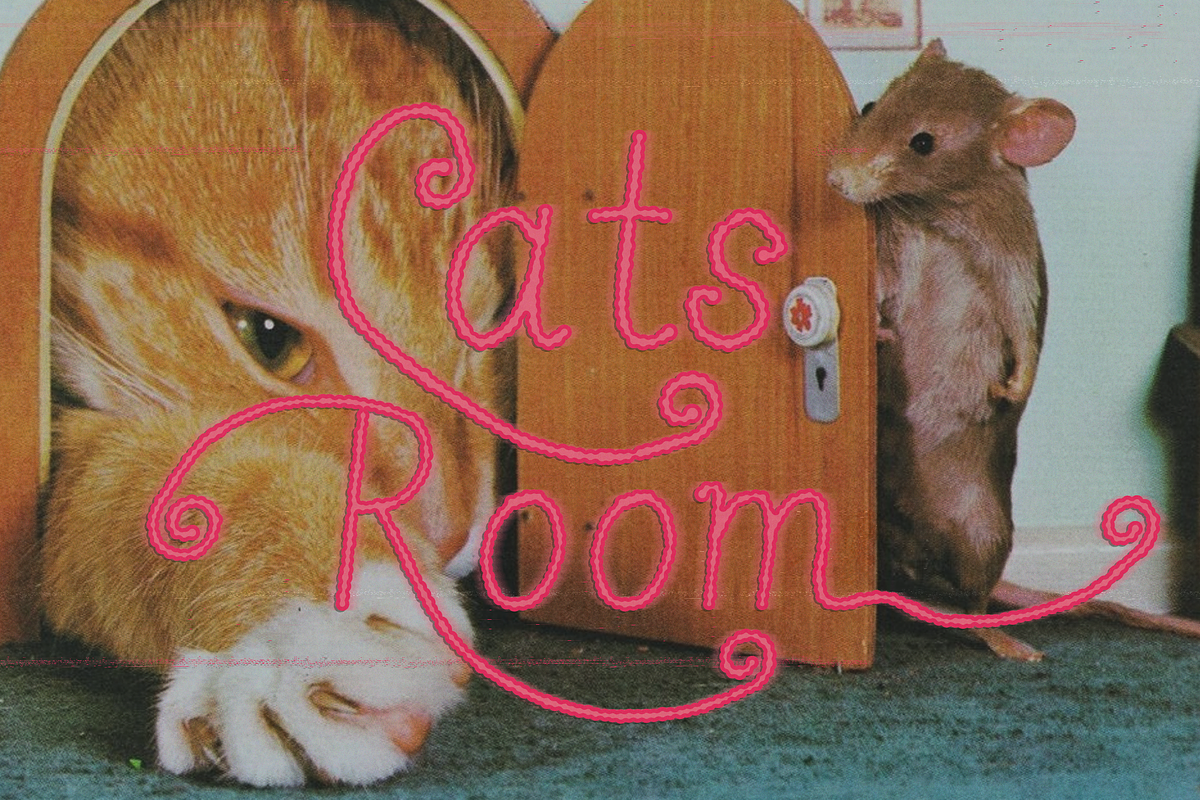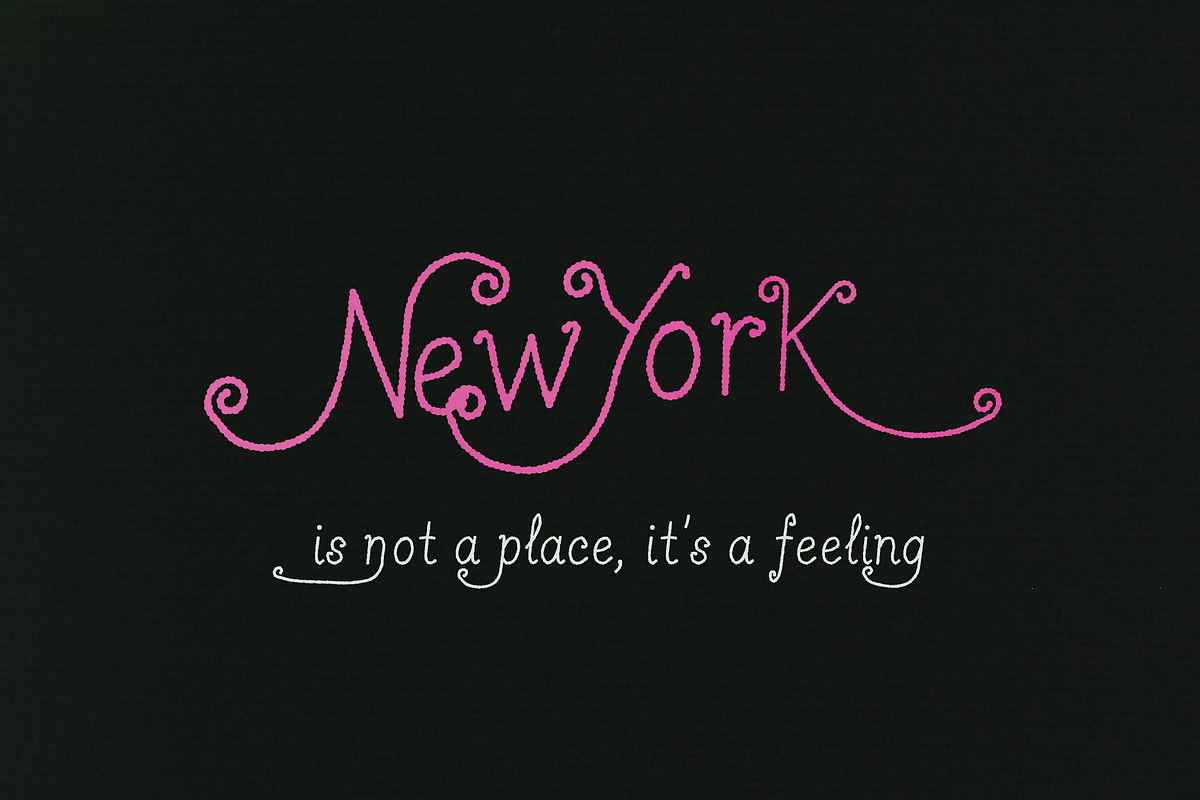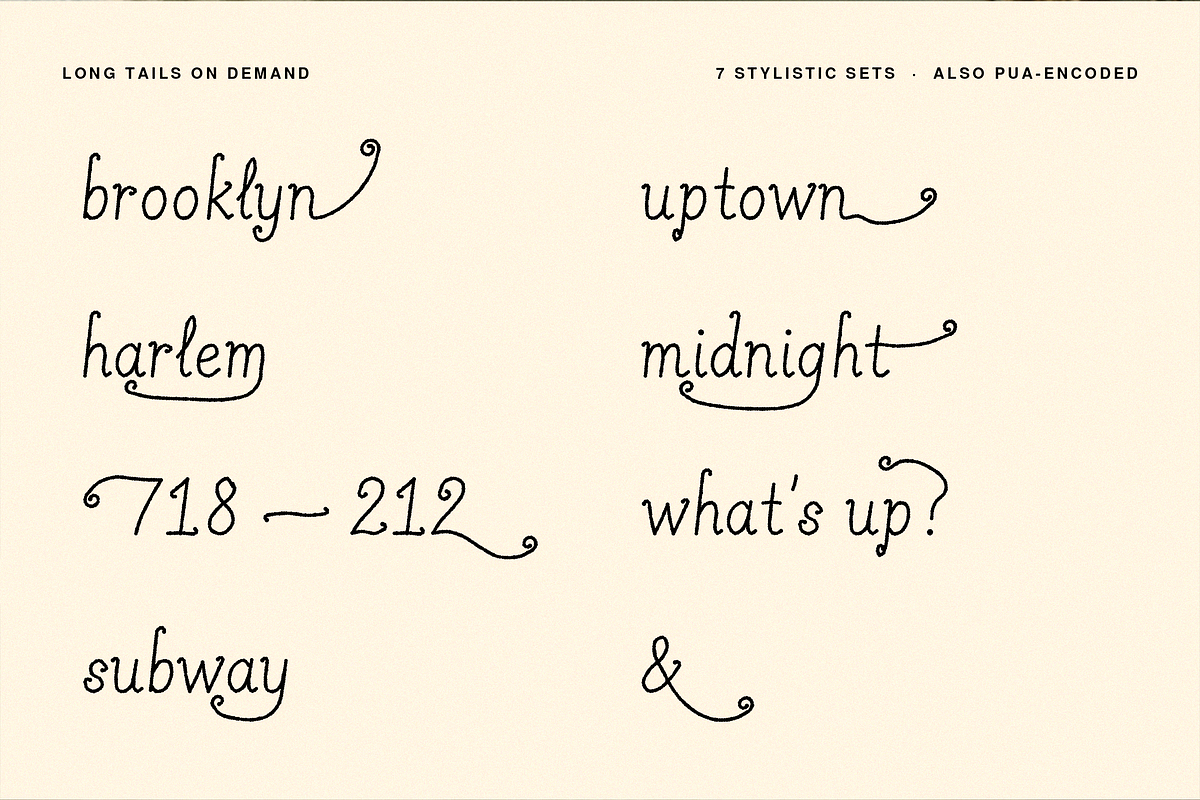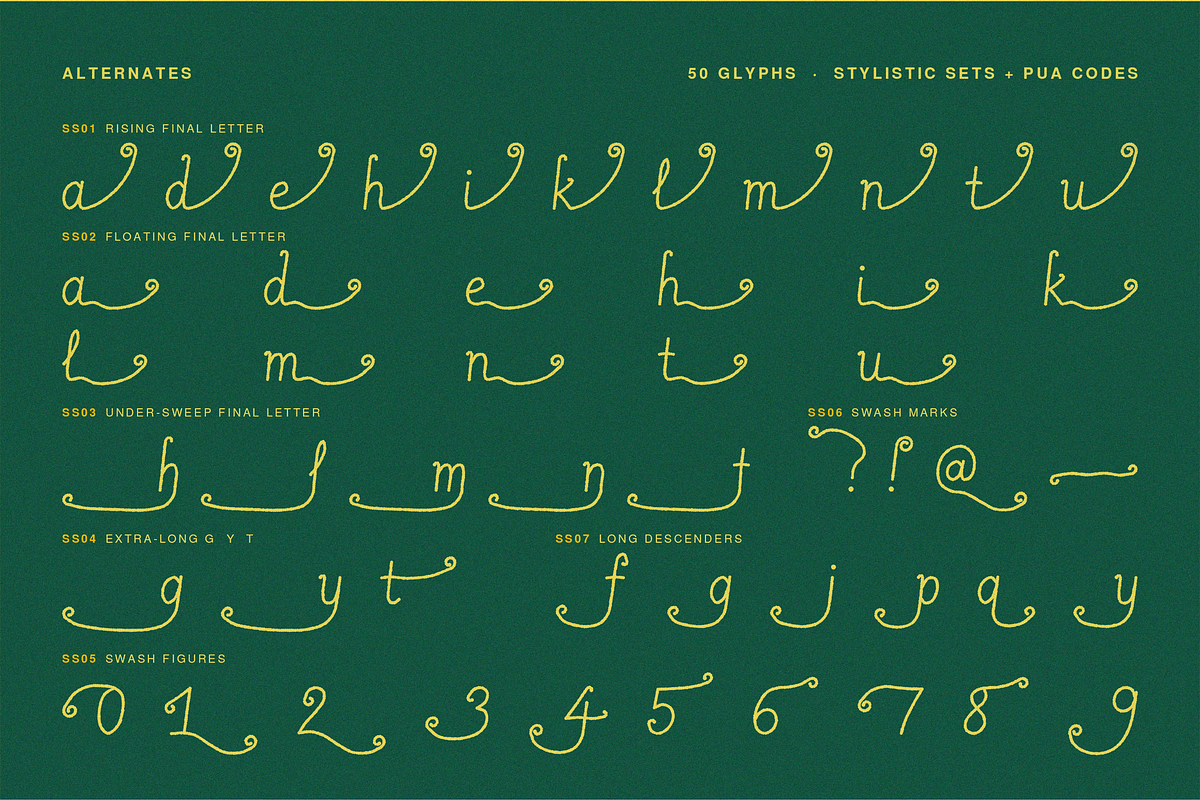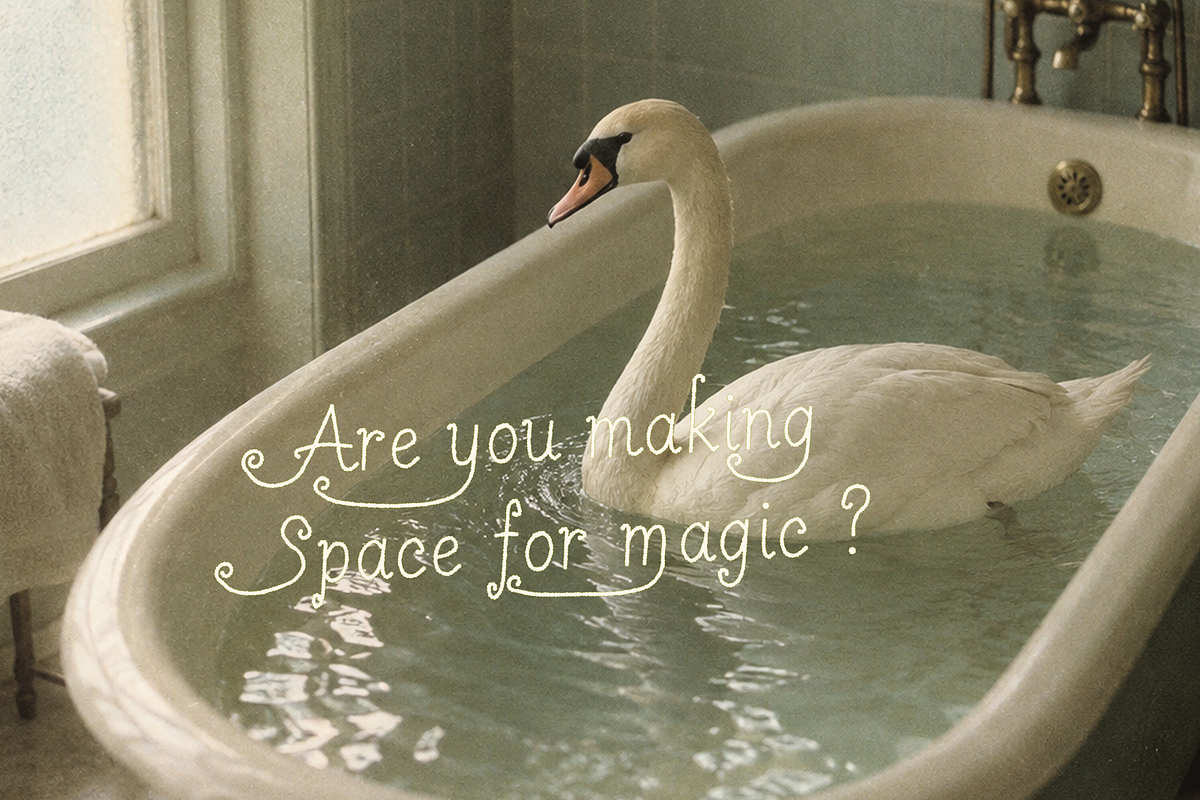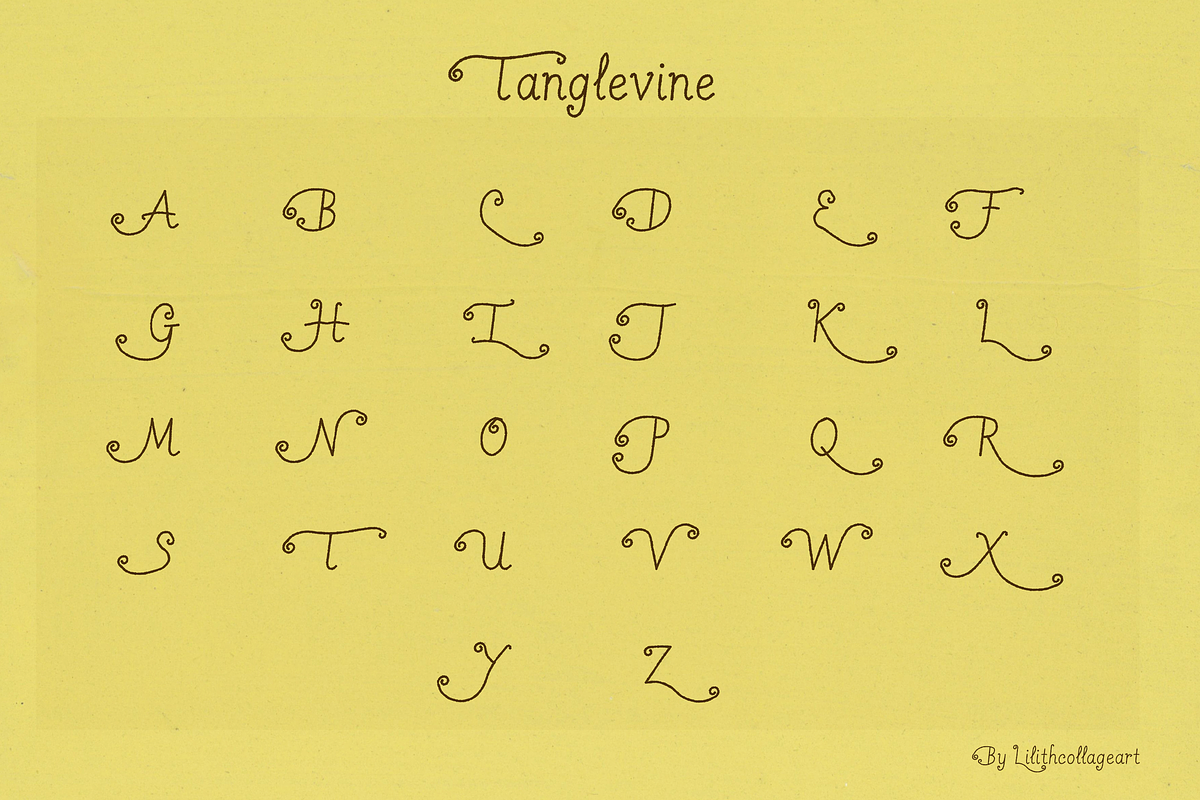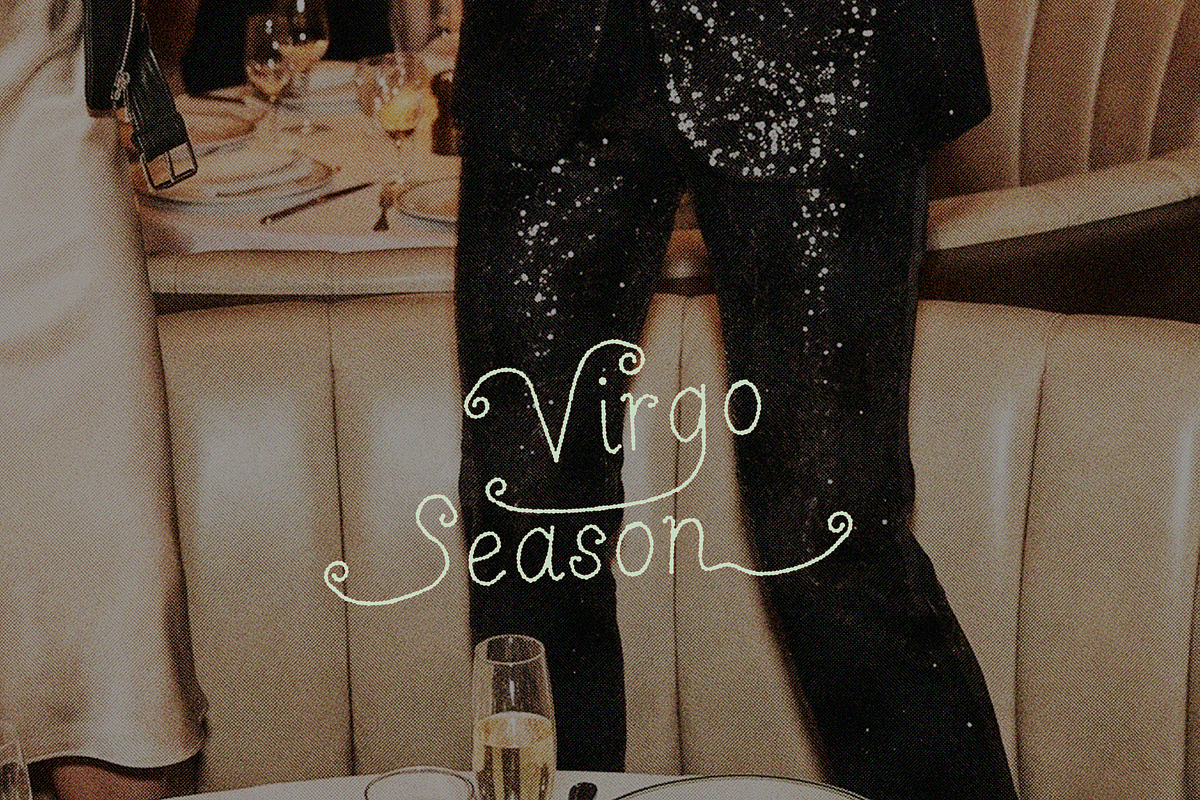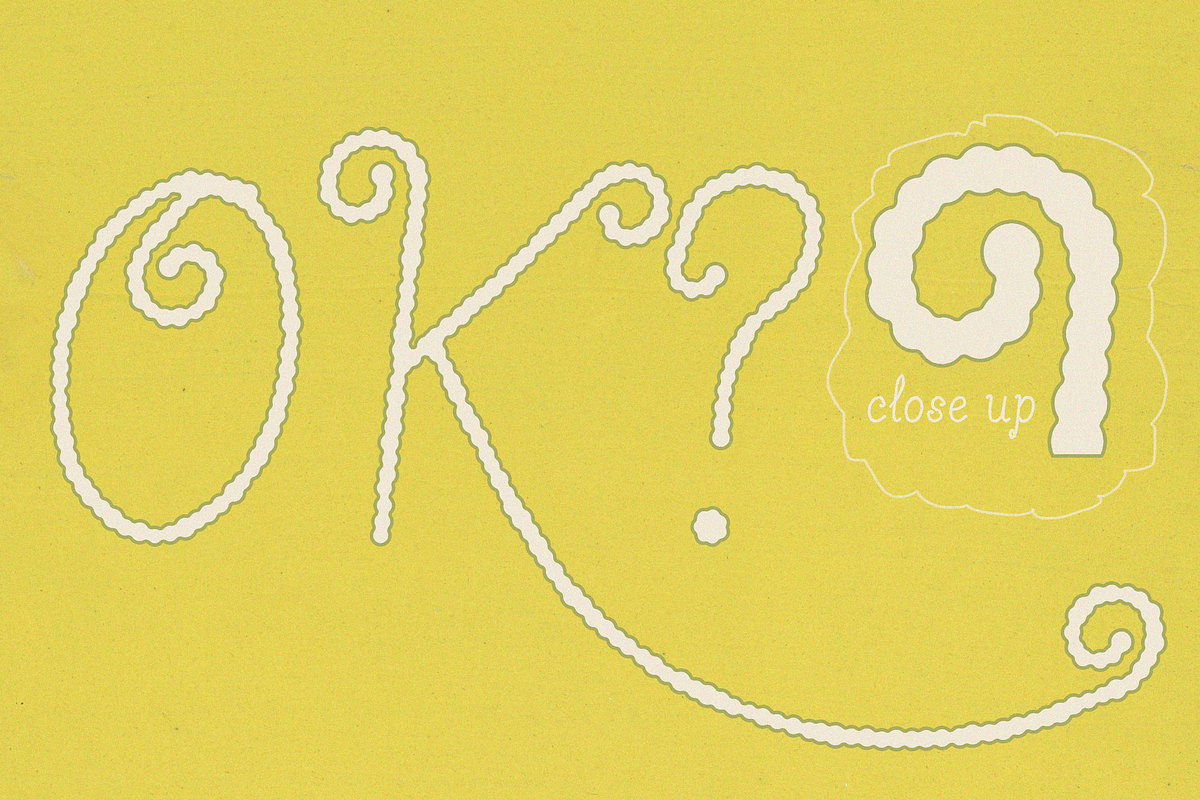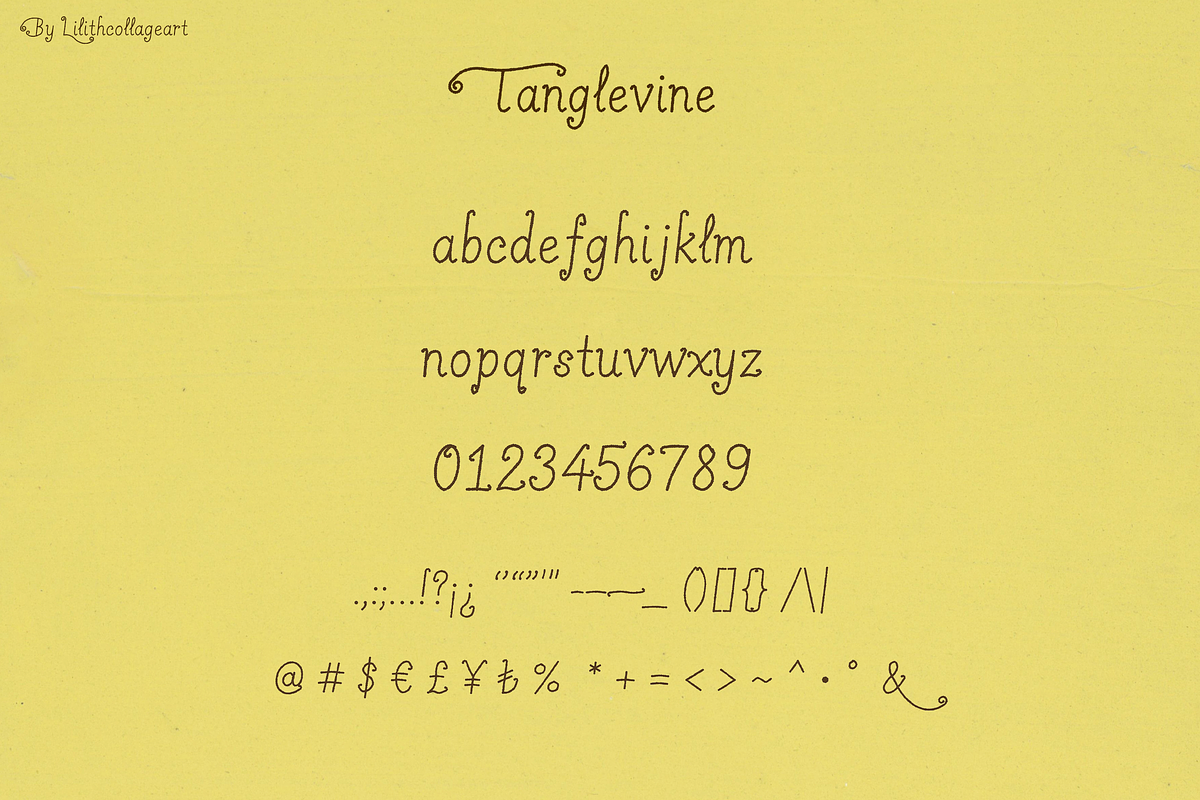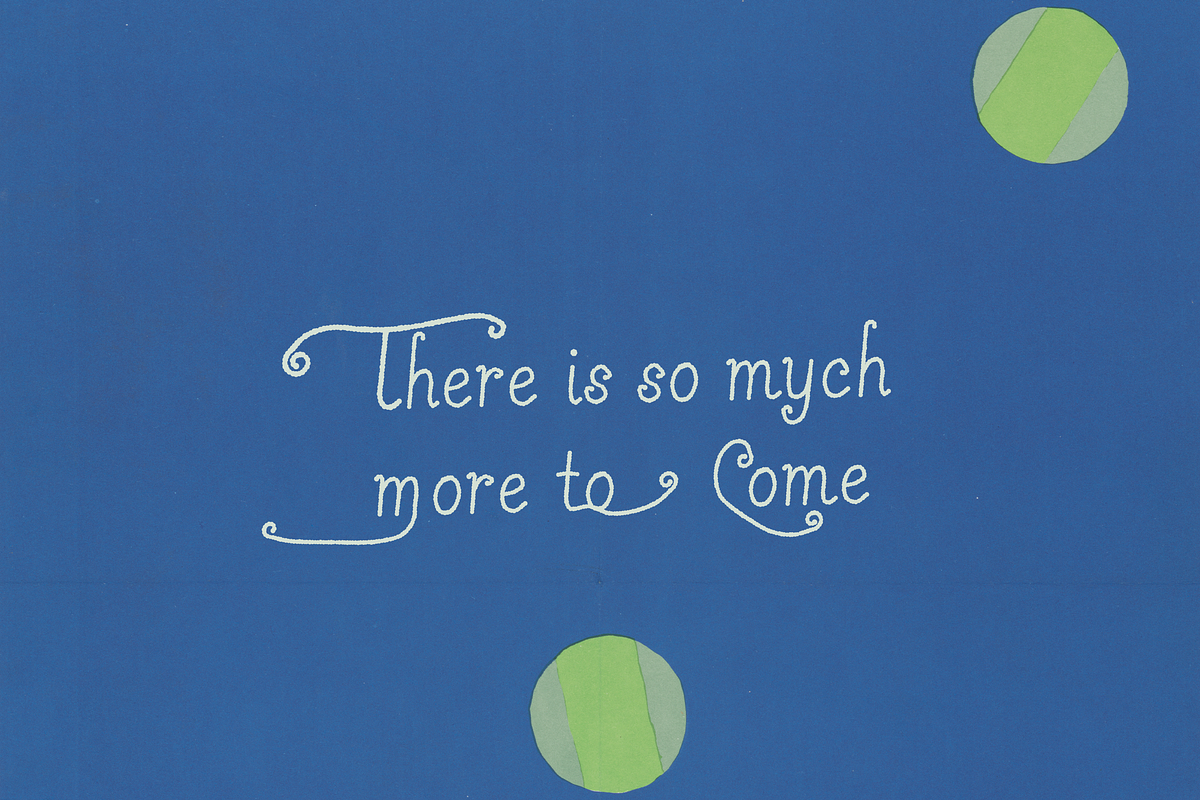
Tanglevine Script Font
Tanglevine is a monoline script that can't sit still. Every stroke is strung like a row of beads, and every terminal curls into a little spiral. The capitals arrive with long sweeping tails. The small letters keep theirs short, so words stay clean and readable; then you switch the long tails back on, one stylistic set at a time, exactly where you want the drama.
It's made for the places a headline has to carry the whole mood: mixtape and album covers, flyers and posters, logos and labels, packaging, zines, invitations, quotes and merch.
161 glyphs: A–Z, a–z, 0–9, plus 10 swash figures
46 punctuation marks and symbols, including $ € £ ¥ ₺, curly quotes, ¡ ¿ and a long-tail ampersand
Short-tail small letters as the default, no tail touches another, in any pair of small letters
7 stylistic sets for long tails on demand: ss01 rising final letter, ss02 floating final letter, ss03 under-sweep (h l m n t), ss04 extra-long g y t, ss05 swash figures, ss06 swash ? ! @ and em dash, ss07 long sweeping f g j p q y
The letter and figure sets are contextual: a long tail only appears where it has room, so you can leave them switched on.